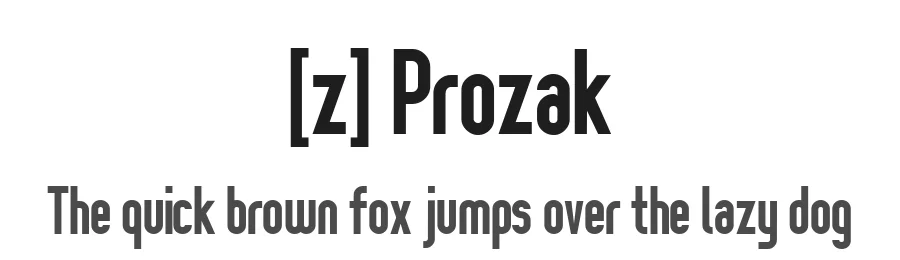
About Prozak Font
Prozak is a sans serif font, created for captions and text blocks.
Available also in bold and light version, it can be easily used in different situation.
Prozak Font is a versatile sans-serif font that works for both headings and body text. Pair it with a contrasting serif or slab serif font to add visual interest and a clear distinction between titles and body copy.
Prozak Font